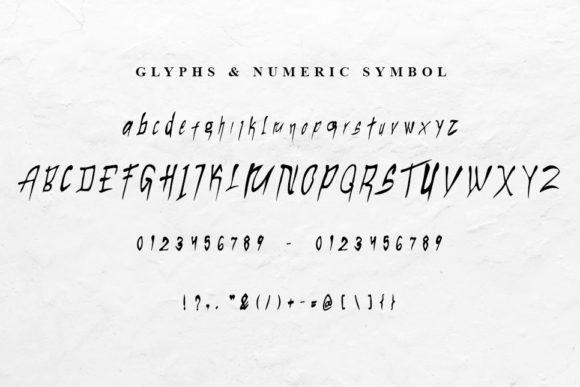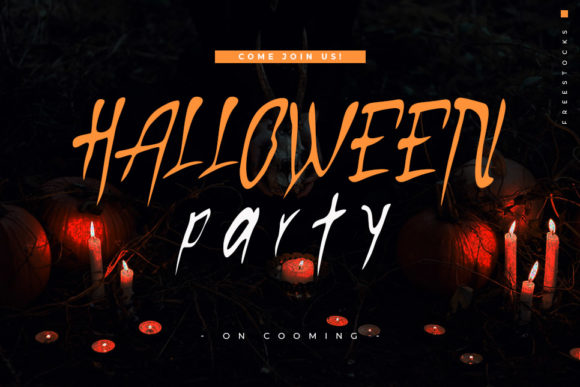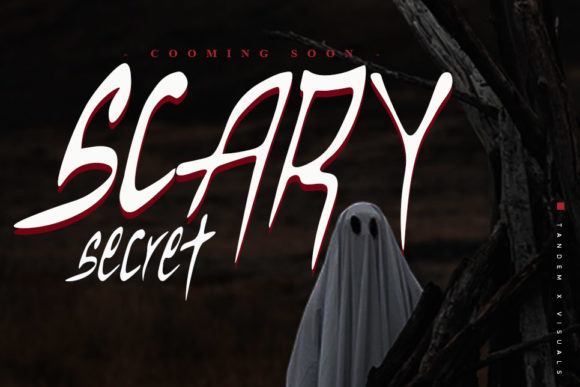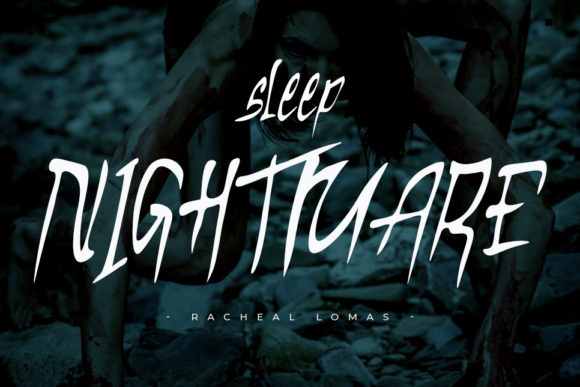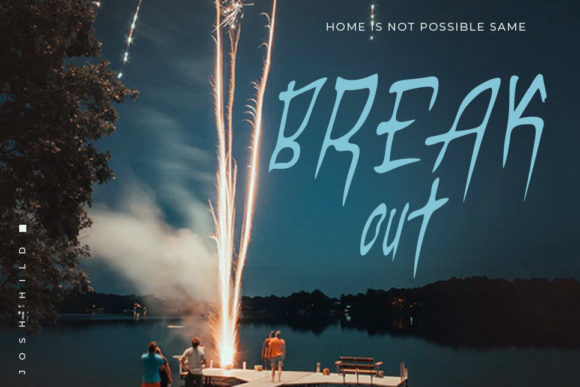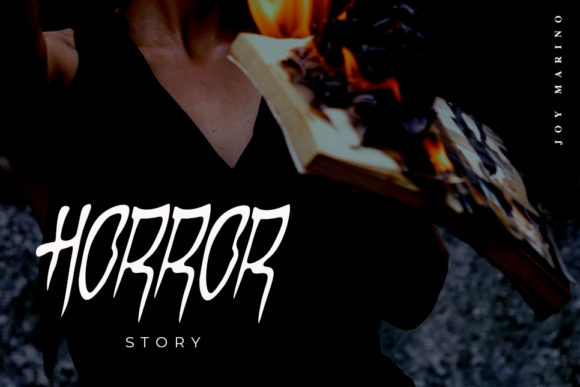
HomeScript FontsBregudul Font Script Fonts Bregudul Font FacebookXPinterestWhatsApp Bregudul Font Poster 2 Bregudul Font Poster 3 Bregudul Font Poster 4 Bregudul Font Poster 5 Bregudul Font Poster 6 Bregudul Font Poster 7 About Bregudul Font Bregudul is a handwritten font with a scary look. It’s perfect suited for any spooky project. DOWNLOAD ON CREATIVE FABRICAThis font is sold and delivered by Creative Fabrica. Font Canyon may earn a commission if you buy through this link. People also explored Transmute Ethnic Mandala Monogram Font Anistton Font Beautyful Font Puppylike Font Mahesia Font Balkiez Font Kashering Font Adellas Font 340 0 TagsBregudul Font Previous articleBerkah Dalem FontNext articleKembara Cinta Font LEAVE A REPLY Cancel reply Comment: Please enter your comment! Name:* Please enter your name here Email:* You have entered an incorrect email address! Please enter your email address here Website: Save my name, email, and website in this browser for the next time I comment. Personal Use Free Roustel Personal Use Free Read more about this font Hagia Signal Personal Use Free Read more about this font Gonestones Personal Use Free Read more about this font Pouline Personal Use Free Read more about this font BLOG Transform Your Website: Elevate Your Typography with 7 Best Web Font Generators Are you ready to transform your website's typography from ordinary to extraordinary? Great! Today, we're diving into the world of web font generators, which... Fonts That Capture the Spirit of New York City Exploring Font Trends How to Install and Use Fonts on Windows, macOS, and Web Projects